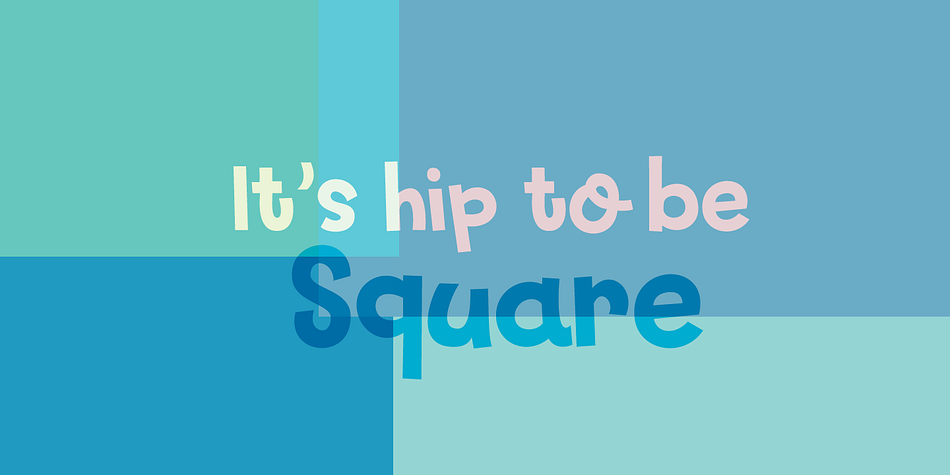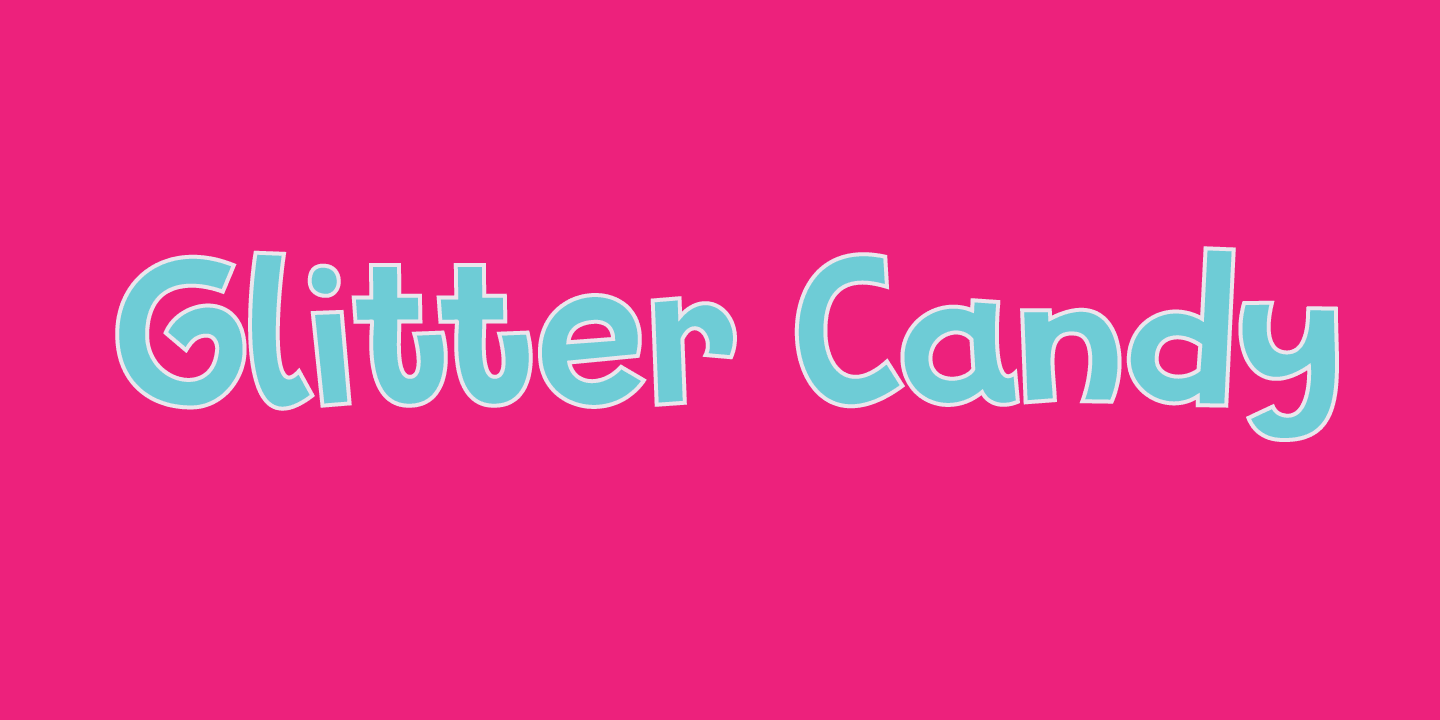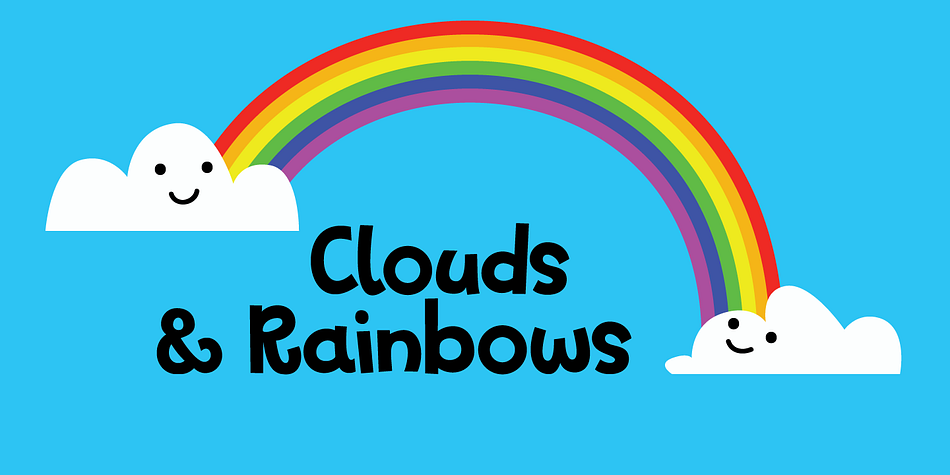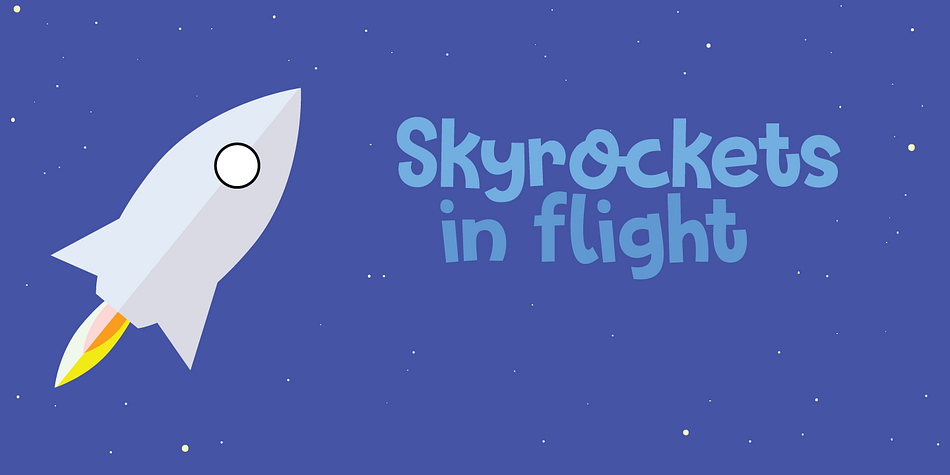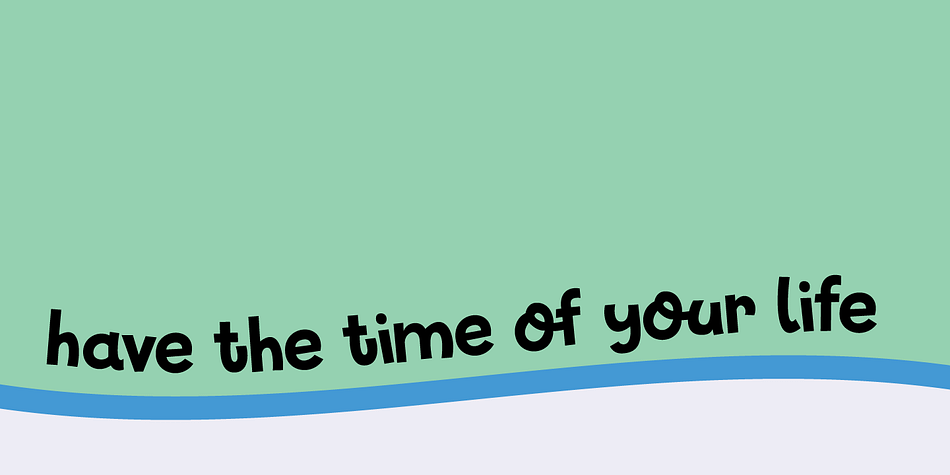
Designed by David Kerkhoff, Glitter Candy is a hand display and kids font published by Hanoded.
Glitter Candy is a happy font: rounded, fat and cute. Ideal for children’s book covers, posters and product packaging.